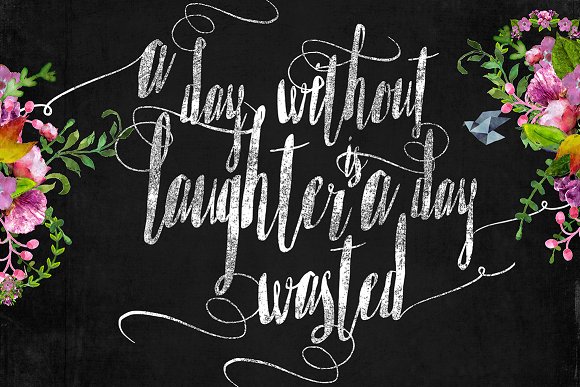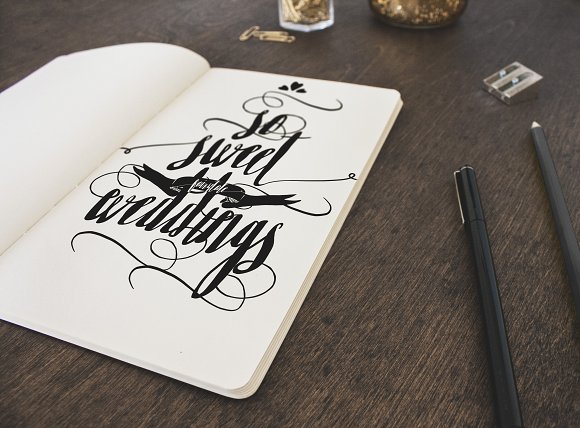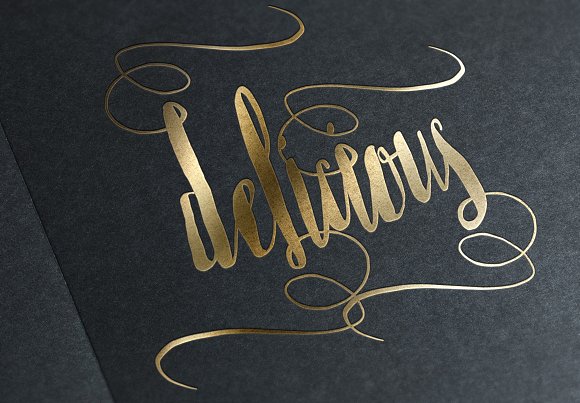
Introduction to Saltywaters Font
As a designer, there’s nothing quite like the thrill of bringing a creative project to life. You’ve spent hours pouring over ideas, sketching out concepts, and perfecting every detail – and then it all comes together in a beautiful, cohesive piece. But, let’s be real, the right font can make all the difference. That’s why we’re excited to dive into the world of the Saltywaters Font, a stunning handcrafted font that’s sure to elevate your next design project.
Created by the talented team at Creativeqube, the Saltywaters Font is a high-quality design resource that’s perfect for any creative project. With its sleek, modern aesthetic and transparent background, this font is sure to add a touch of sophistication to your designs. And the best part? It’s available for a free download, making it a valuable resource for designers of all levels.
Honest Review: Saltywaters Font
I recently had the chance to work with the Saltywaters Font, and I must say it’s a great addition to any design resource. With its unique, hand-drawn feel, this font is perfect for creative projects that need a bit of personality.
- ✨ What works well: The Saltywaters Font has a high quality feel to it, making it perfect for printing or using in digital designs. It’s also completely free to download, which is a huge plus.
- ✨ The font includes a transparent background, making it easy to use in a variety of design scenarios.
- ⚠️ The font is limited to a single style, which may not be suitable for projects that require multiple font weights or styles.
- ⚠️ The font may not be suitable for small text sizes, as the hand-drawn feel can become difficult to read at very small sizes.
Overall, I’m impressed with the Saltywaters Font. It’s a great addition to any design resource, and it’s perfect for creative projects that need a bit of personality. Just be aware of the limitations, and you’ll be golden.
Tips for Getting the Most Out of Saltywaters Font
Use the Saltywaters Font with a transparent background to create a beautiful, high-contrast design. Experiment with different font sizes and styles to add visual interest to your project.
The Saltywaters Font is perfect for creative projects such as branding, marketing materials, and web design. Its high-quality design makes it a great choice for any project that requires a professional touch.
Alternatives to Saltywaters Font
Open Sans is a popular high-quality font used in various design projects. It’s ideal for creating a clean and modern look with its transparent background. You can use it for brochures, business cards, or any creative project that requires a clear and readable font.
Open Sans compares to Saltywaters Font in its simplicity and versatility, but it lacks the unique, handwritten feel of Saltywaters. It’s available for free download and is a great alternative for designers who want a reliable and easy-to-use font.
Great Vibes is a beautiful, cursive font that’s perfect for creative projects that require a touch of elegance. It’s ideal for wedding invitations, greeting cards, or any design that needs a romantic and whimsical feel.
Great Vibes compares to Saltywaters Font in its unique, handwritten style, but it’s more ornate and less versatile. It’s available for free download, making it a great option for designers who want a high-quality font without breaking the bank.
Lato is a modern sans-serif font that’s perfect for creating a clean and sophisticated look. It’s ideal for corporate designs, websites, or any project that requires a professional and trustworthy feel.